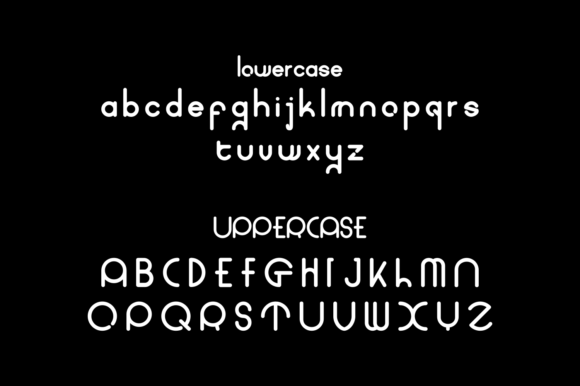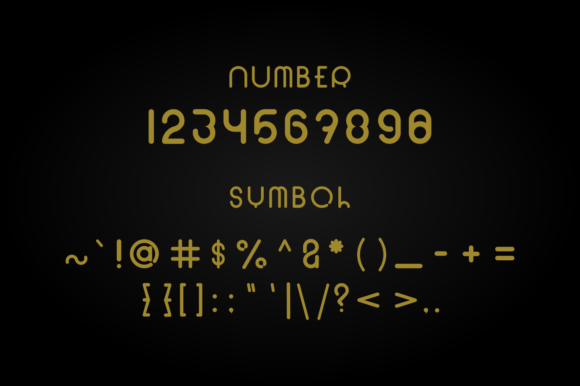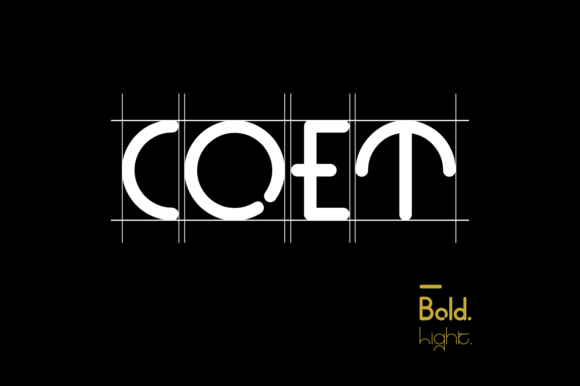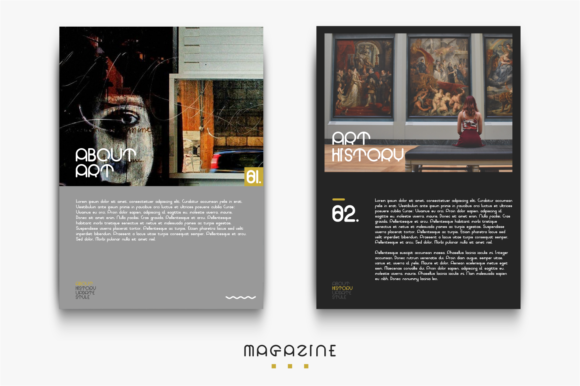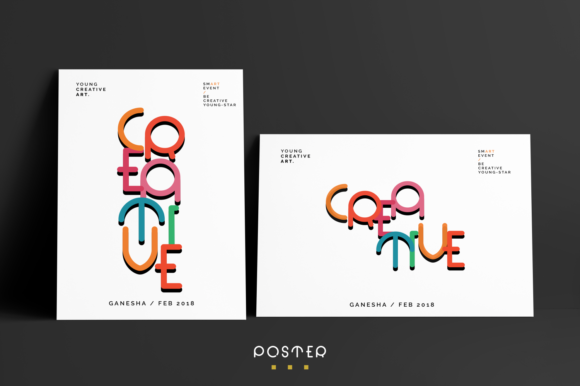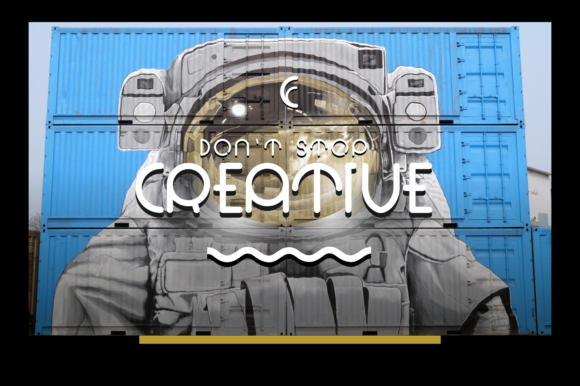
Introducing Coet Font: A Modern Sans Serif for Unique Designs
In the world of typography, fonts play a crucial role in making or breaking a design. As a designer or crafter, you’re constantly on the lookout for fresh and exciting fonts to add a personal touch to your creations. If you’re looking for a modern sans serif font that can elevate your designs, look no further than Coet Font. In this article, we’ll dive into the features and benefits of Coet Font, and explore how it can be used to take your designs to the next level.
What is Coet Font?
The Coet is a modern sans font that exudes simplicity and elegance. It comes in two versatile versions: bold and light. This dual-weight font offers flexibility and allows you to experiment with different styles to suit your design needs. Whether you’re working on a logo, branding materials, or digital content, Coet Font provides a clean and crisp aesthetic that’s sure to impress.
Key Features of Coet Font
- Modern sans serif design: Coet Font boasts a sleek and contemporary design that’s perfect for modern designs.
- Dual-weight option: The font comes in both bold and light versions, giving you the flexibility to choose the perfect weight for your design.
- Unique touch: Coet Font’s distinctive style adds a unique touch to your designs, setting them apart from the crowd.
- Easy to read: The font’s clean lines and simple design make it easy to read, even at small sizes.
Benefits of Using Coet Font
So, why should you choose Coet Font for your designs? Here are just a few benefits of using this versatile font:
- Enhance your brand’s visual identity: Coet Font’s modern design and dual-weight option make it an excellent choice for branding materials, such as logos, business cards, and letterheads.
- Elevate your digital content: The font’s clean and crisp aesthetic makes it perfect for digital content, such as website headers, social media graphics, and email newsletters.
- Stand out from the crowd: Coet Font’s unique design ensures that your designs will stand out from the crowd and leave a lasting impression on your audience.
How to Use Coet Font in Your Designs
Using Coet Font in your designs is easy. Here are a few tips to get you started:
- Pair it with other fonts: Experiment with pairing Coet Font with other fonts to create a unique and visually appealing design.
- Use it consistently: Use Coet Font consistently across your designs to create a cohesive brand identity.
- Experiment with different weights: Try using the bold and light versions of Coet Font in different contexts to see which works best for your design.
In conclusion, Coet Font is a versatile and modern sans serif font that’s perfect for designers and crafters looking to add a unique touch to their designs. With its dual-weight option, clean design, and easy readability, Coet Font is an excellent choice for a wide range of design applications. Whether you’re working on branding materials, digital content, or print designs, Coet Font is sure to elevate your creations and help you stand out from the crowd.